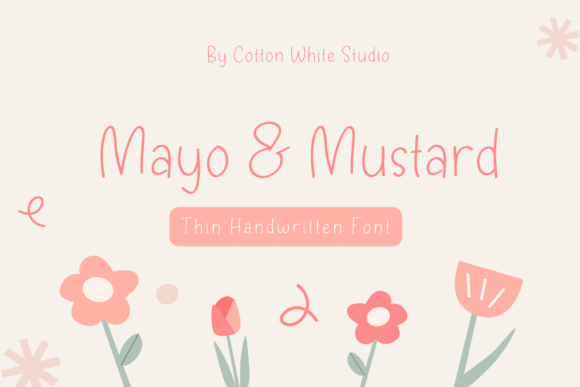
Introducing Mayo and Mustard Font - A Culinary-Inspired Script That Will Add Flavor to Your Digital Creations!
In a world where digital communication reigns supreme, our words have the power to transport, inspire, and connect. From heartfelt notes to captivating stories, the way we express ourselves online leaves a lasting impression. But what if you could elevate your digital presence with a font that dances with personality and charm? Enter Mayo and Mustard Font - a delectable handwritten script that will add a dash of whimsy and a sprinkle of sophistication to your digital creations.
Crafted with love by the talented team at Cotton White Studio, Mayo and Mustard Font is not just a font; it's an experience. Its flowing lines, reminiscent of a chef's delicate strokes, create a visual symphony that captivates the eyes and engages the heart. Each letter is a work of art, dancing across the screen with an effortless grace that reflects the beauty of handwritten notes.
Whether you're a creative professional, a student, or simply someone who loves to add a personal touch to their digital interactions, Mayo and Mustard Font is your secret ingredient. It's perfect for digital planners and journals, where your thoughts and memories deserve a canvas that matches their significance. Create invitations that exude elegance and charm, or use it for note-taking, adding a touch of personality to your digital workspace.
With Mayo and Mustard Font, you'll discover a world of possibilities. Its versatility extends from casual to formal settings, making it an ideal choice for blogs, websites, and social media posts. Its playful nature adds a touch of lightheartedness to professional documents, while its sophisticated charm elevates personal correspondence.
Choosing Mayo and Mustard Font is like inviting a master chef into your digital kitchen. It's a font that transforms ordinary words into culinary masterpieces, leaving a lasting impression on your audience. So, embrace the delightful flavors of Mayo and Mustard Font and let your digital creations dance with creativity and charm.